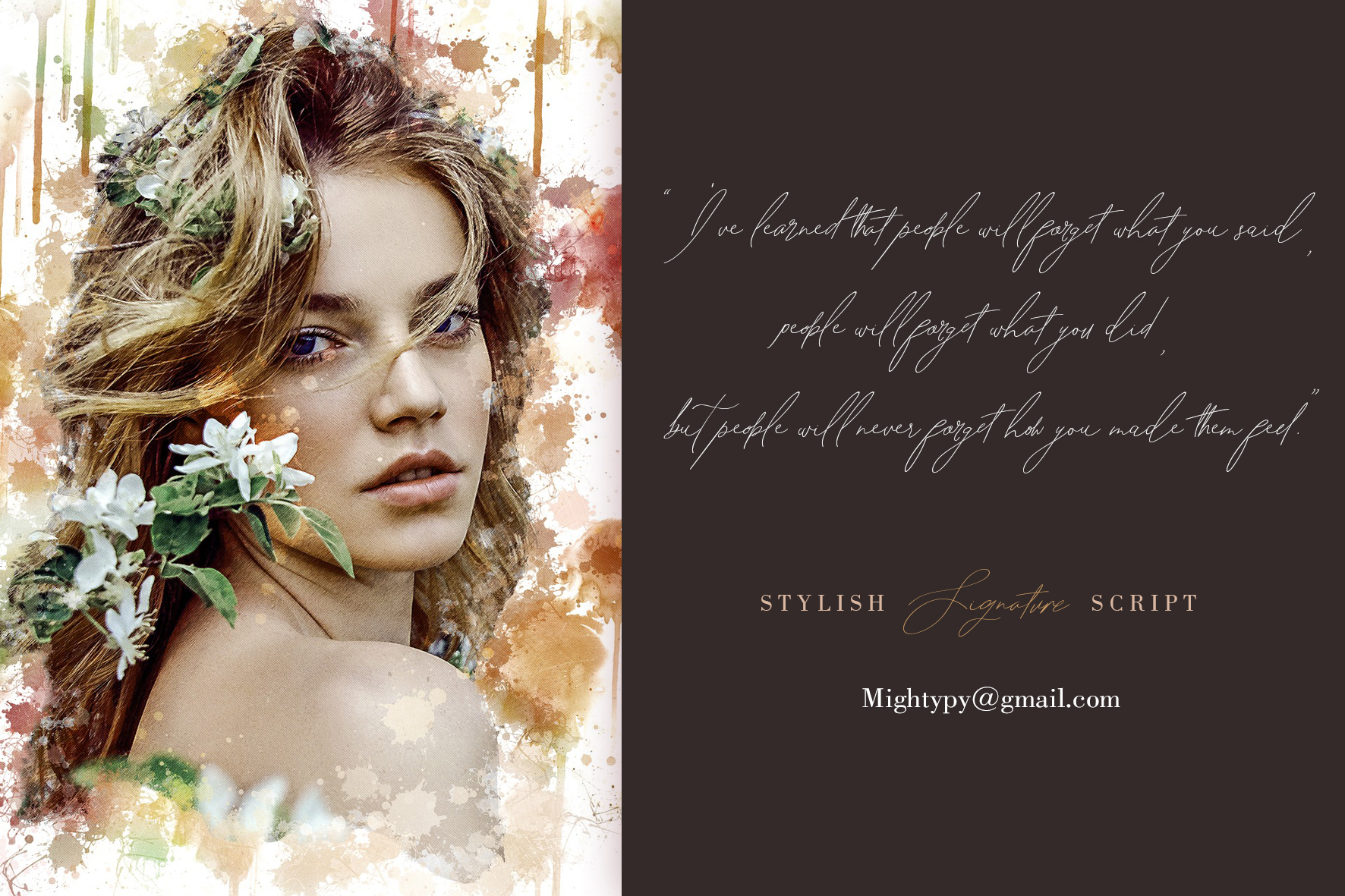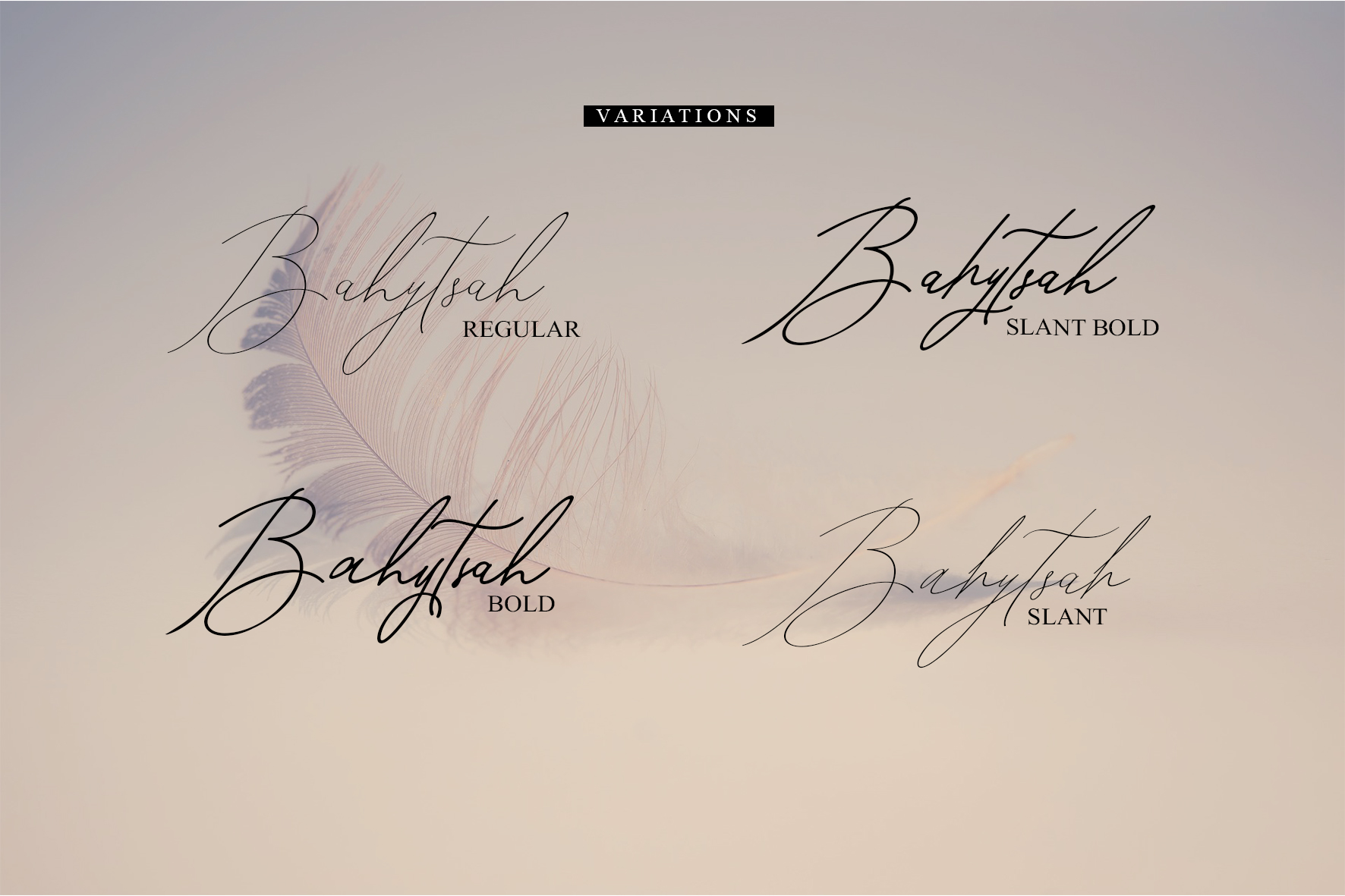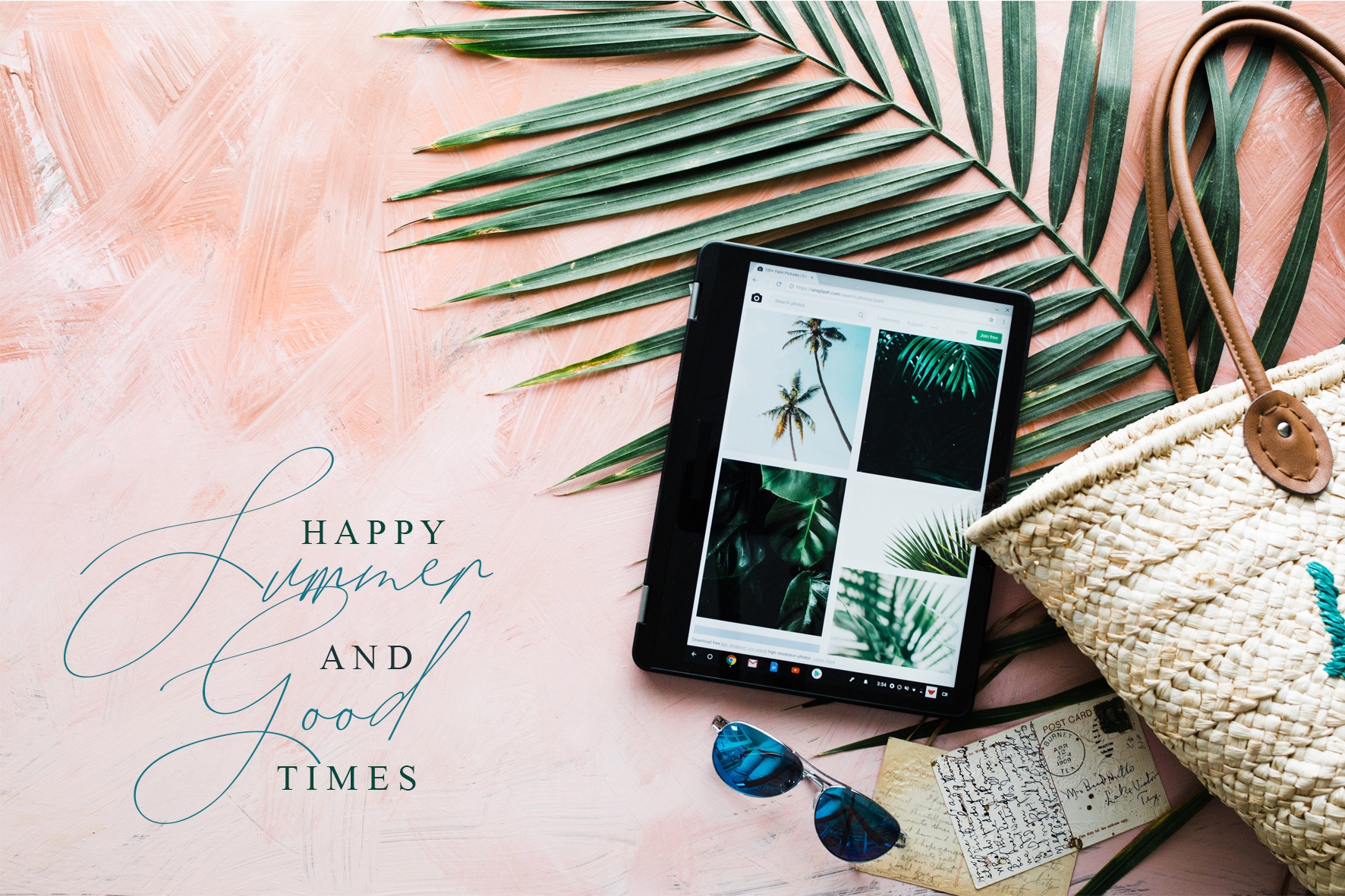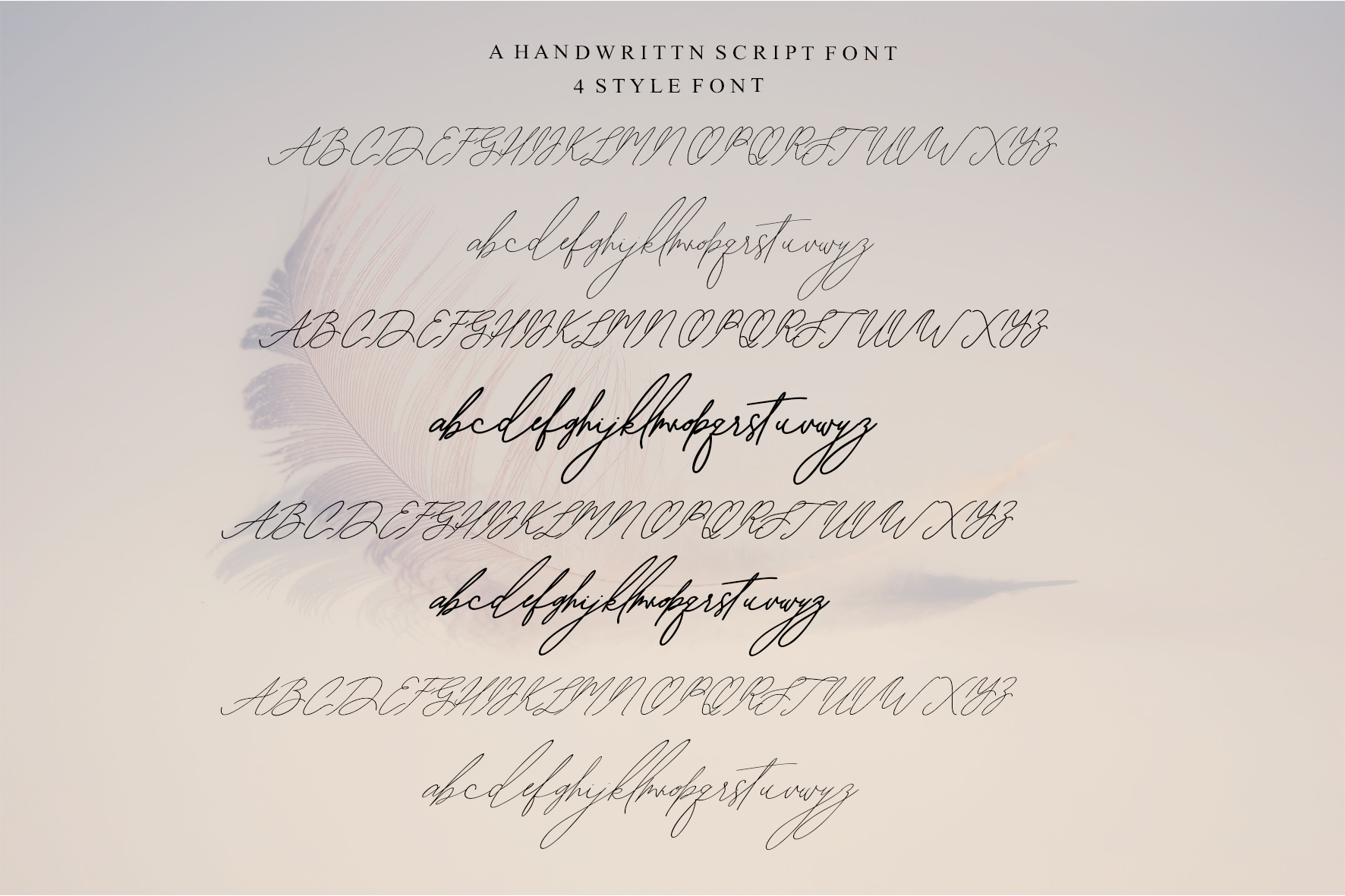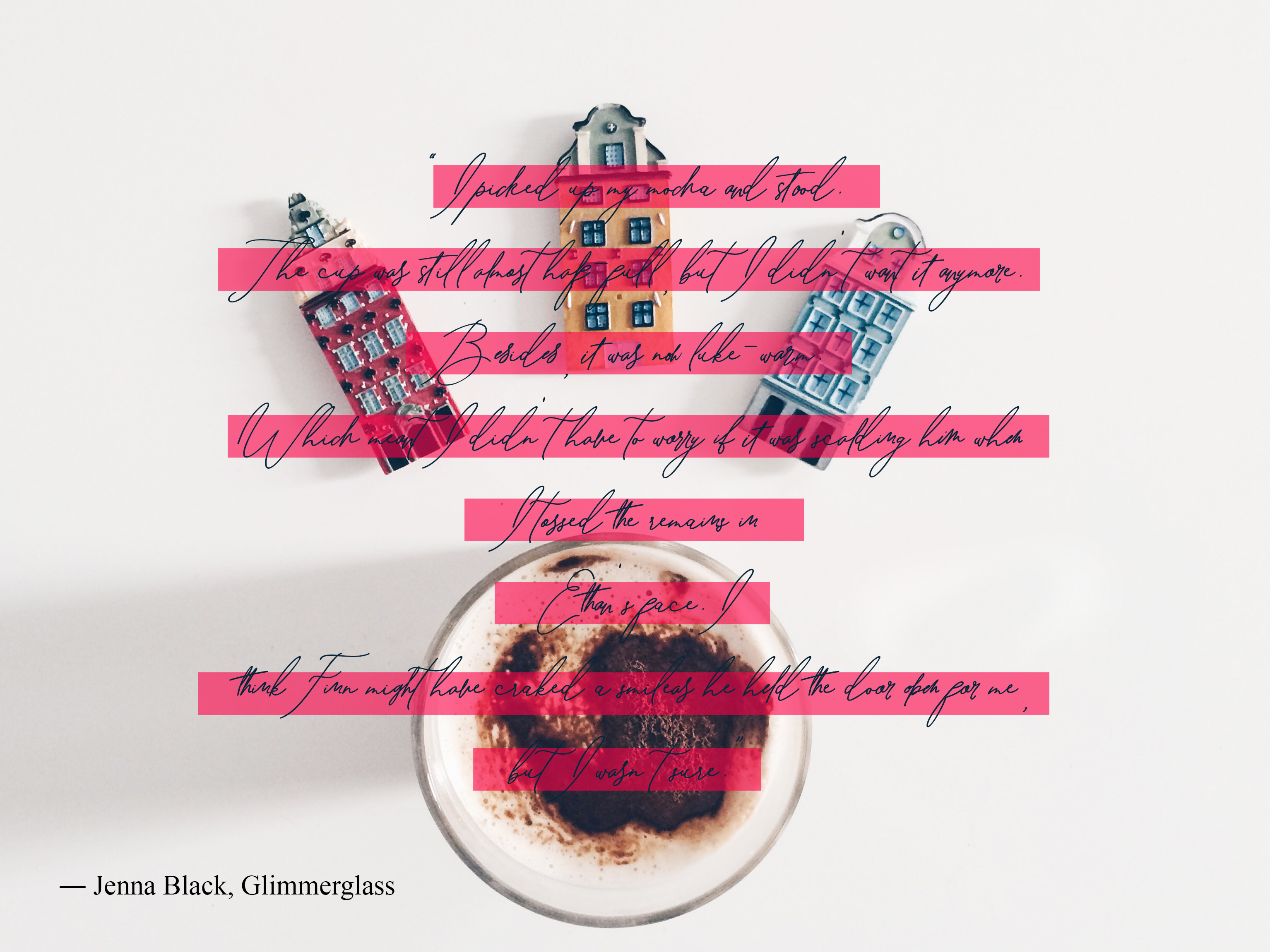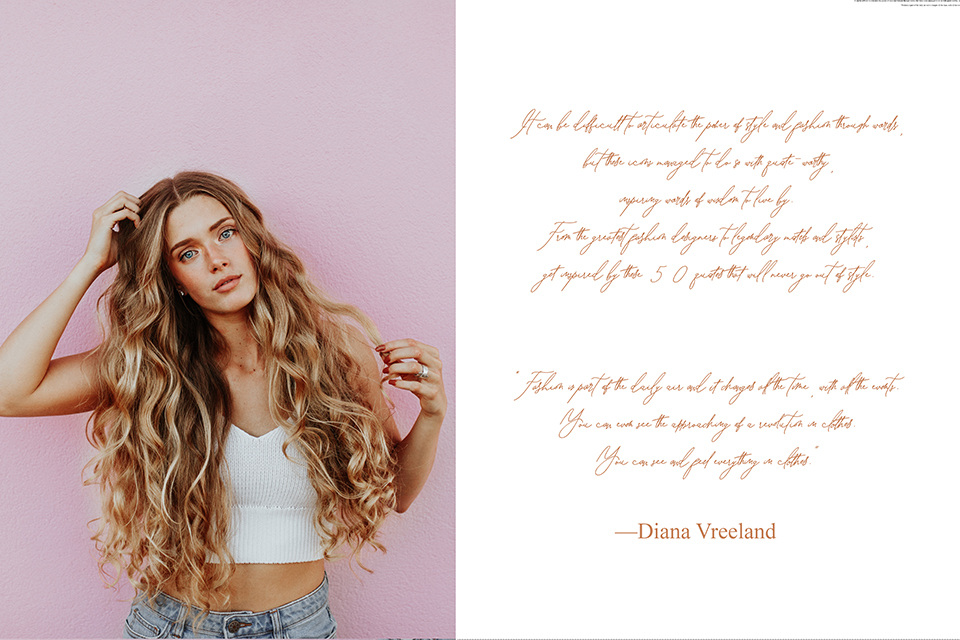
The Perfect Brushstroke: Unlocking the Power of Bahytsah Font
As designers, we’ve all been there – staring at a blank page, searching for the perfect combination of words and style to bring our creative vision to life. The moment of inspiration strikes, and suddenly, our minds are flooded with ideas. That’s exactly what happened when I discovered the Bahytsah Font, a modern calligraphy script font that’s fully immersed in current style trends.
Bahytsah Font is a beautifully crafted, handwritten font designed to elevate a wide range of projects. With its vast collection of glyphs and style variations, it’s the perfect tool for designers looking to add a touch of sophistication and elegance to their work. Whether you’re creating a wedding invitation, a brand logo, or a social media campaign, Bahytsah Font is sure to deliver.
What sets Bahytsah Font apart is its versatility and value for designers. Its unique blend of modern and classic elements makes it a valuable addition to any design toolkit, allowing users to create stunning, one-of-a-kind designs that stand out from the crowd.
Bahytsah Font Key Features
- Unique Characteristics: Bahytsah Font features a unique blend of traditional and modern elements, with intricate details and ornaments.
- Font Style: Bahytsah Font is available in both regular and bold weights, making it suitable for a variety of design applications.
Bahytsah Font Review
I recently had the chance to work with the Bahytsah font, and I must say it’s an interesting choice. Here’s my honest take on it.
- Unique design: The Bahytsah font has a distinctive look that can add a touch of elegance to your designs.
- Legibility: The font is quite readable, even at smaller sizes, making it a great choice for body text.
- Variety: The font family includes several weights and styles, giving you plenty of options to work with.
- Lack of versatility: While the font has a unique design, it may not be the best choice for projects that require a lot of flexibility.
- Not ideal for headings: The font’s elegance may make it hard to use for bold, attention-grabbing headings.
- May not work well with bold text: The font’s design may not translate well to bold text, which can make it harder to read.
Overall, the Bahytsah font is a solid choice for projects that require a touch of elegance. While it may not be the best fit for every project, it’s definitely worth considering for the right job. Just be aware of its limitations and use it accordingly.
Bahytsah Font Practical Application Guide
The Bahytsah font is a modern, elegant script font suitable for various creative projects. To use it in your design, follow these steps:
Tips for Getting the Most Out of Bahytsah Font
For best results, use Bahytsah font in bold or italic styles to add emphasis to your text. You can also combine it with other fonts to create a unique visual effect.
Bahytsah font is ideal for:
- Event promotions and advertising
Alternatives to Bahytsah Font for Designers
Playfair Display is a luxurious and elegant serif font, ideal for creating a sense of sophistication and refinement. It’s perfect for use in high-end branding, luxury goods, and premium packaging. When to use: luxury brands, fine dining, and high-end fashion.
Comparison: Playfair Display is more ornate and luxurious than Bahytsah Font, with a more dramatic flair. While Bahytsah Font is more versatile, Playfair Display excels in creating a sense of opulence and grandeur.
Great Vibes is a modern and stylish script font, ideal for creating a sense of playfulness and energy. It’s perfect for use in creative branding, advertising, and social media. When to use: creative agencies, tech startups, and entertainment brands.
Comparison: Great Vibes is more casual and laid-back than Bahytsah Font, with a more relaxed feel. While Bahytsah Font is more versatile, Great Vibes excels in creating a sense of fun and playfulness.
What is the recommended font size and line height for the Bahytsah Font?
The recommended font size for the Bahytsah Font is between 12pt and 24pt. For body text, a line height of 1.2 to 1.5 times the font size is recommended. This will ensure optimal readability and legibility. For headings and titles, a larger font size and line height can be used to create visual hierarchy and emphasis.